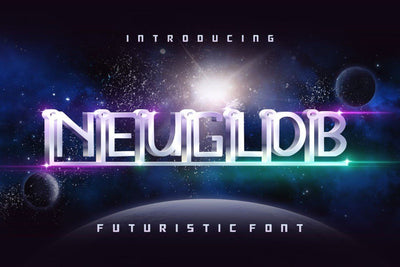
Neuglob – Futuristic Font
Introducing Neuglob – Futuristic Font
Neuglob fonts are inspired by modern space and futuristic styles. With the connecting Uppercase and Lowercase glyph display that gives a strong and modern geometric impression. This font can be used for a variety of your design needs; t-shirts, headlines, merchandise, product packaging, product designs, labels, photography, watermarks, special events or anything